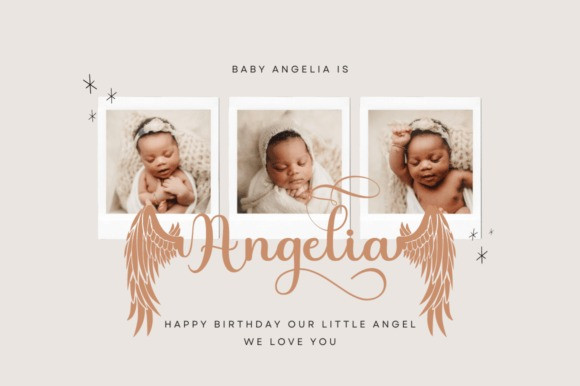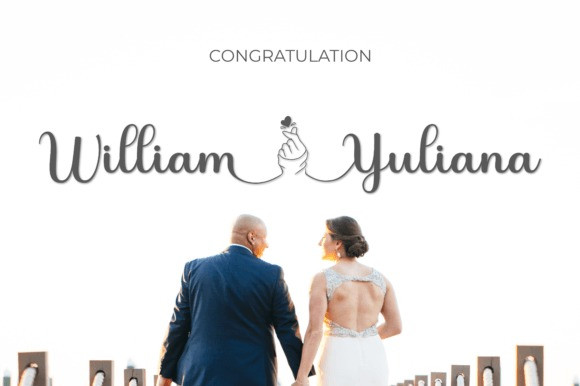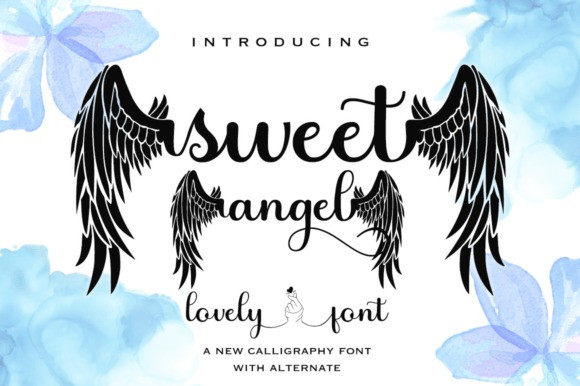
Sweet Angel Font
Sweet Angel Script Font is a modern calligraphy design featuring a casual look and beautiful swashes. It can be used for various purposes such as logos, product packaging, wedding invitations, branding, headlines, signage, labels, signatures, book covers, posters, quotes, and more.